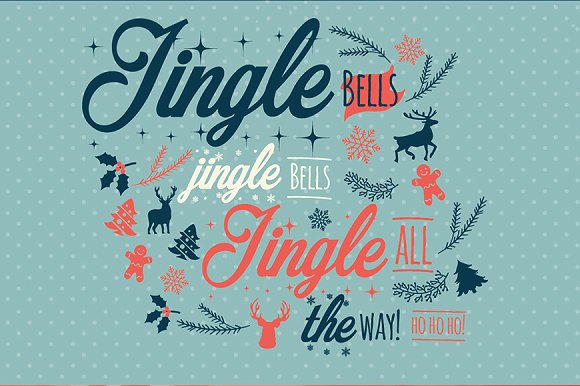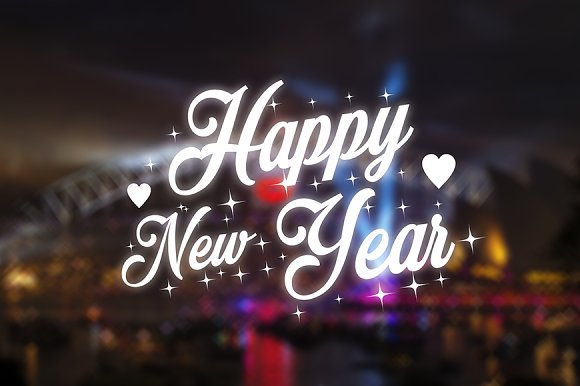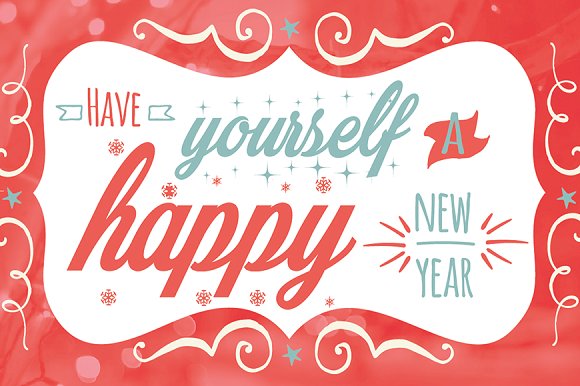
Merry Christmas Script Font
High quality script font with multilingual support and a large number of special characters. Designed by Måns Grebäck, this hand-crafted typeface works great in logotypes and for titles and slogans.